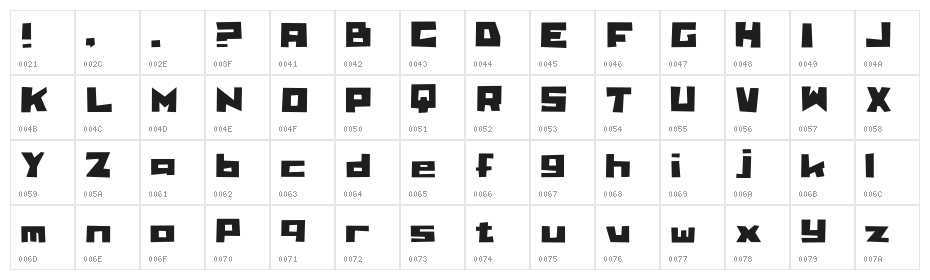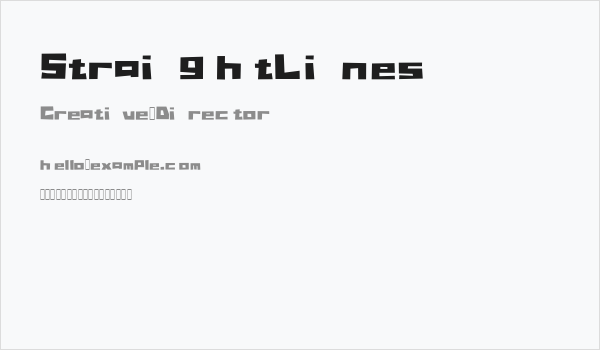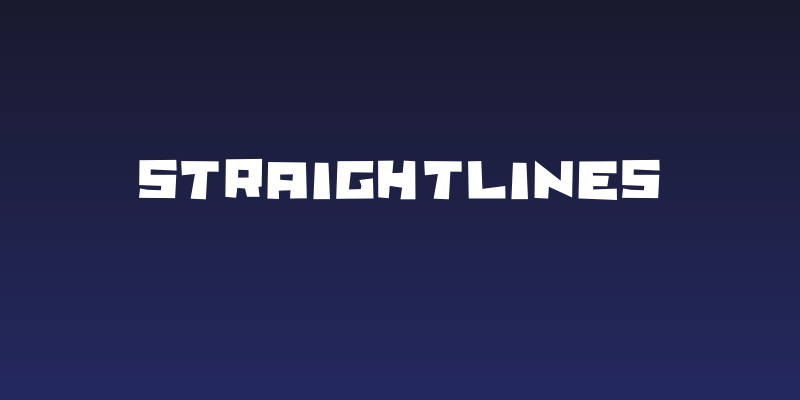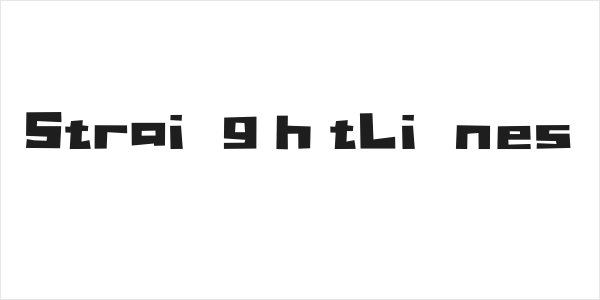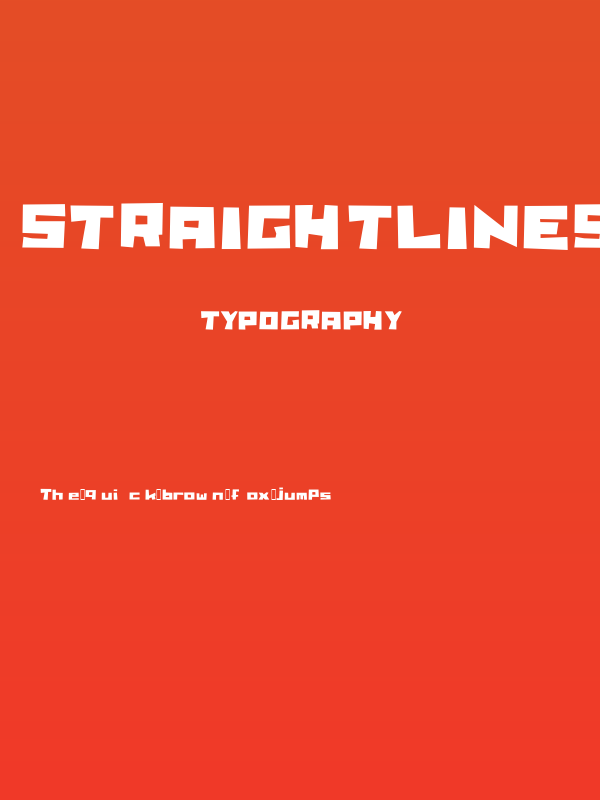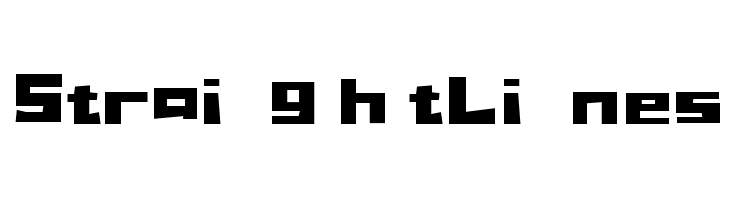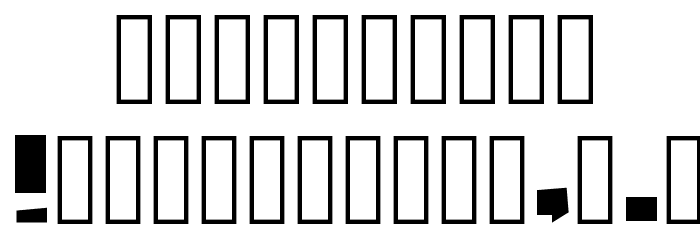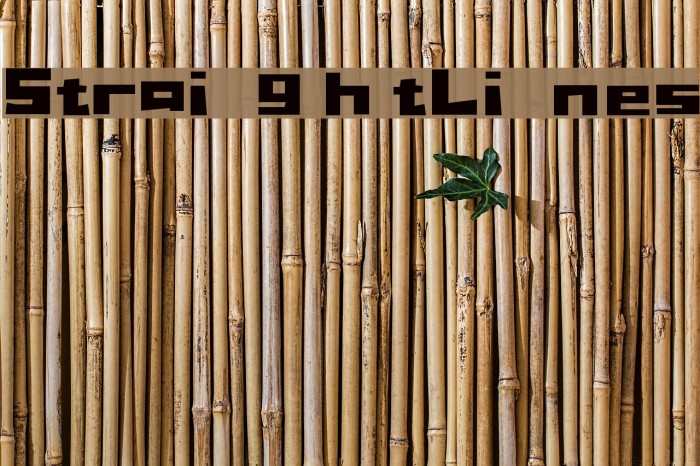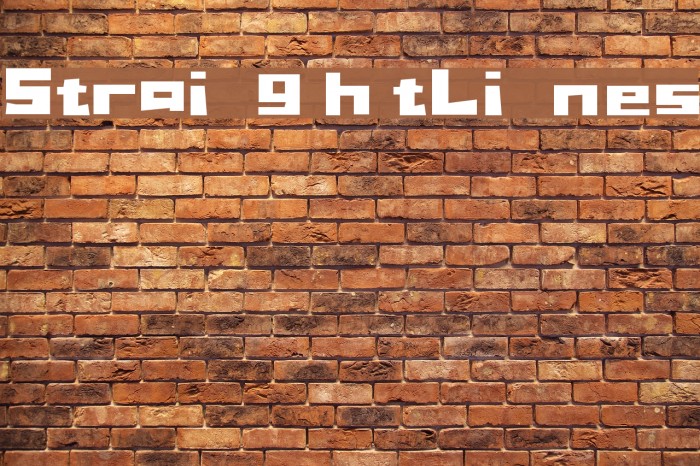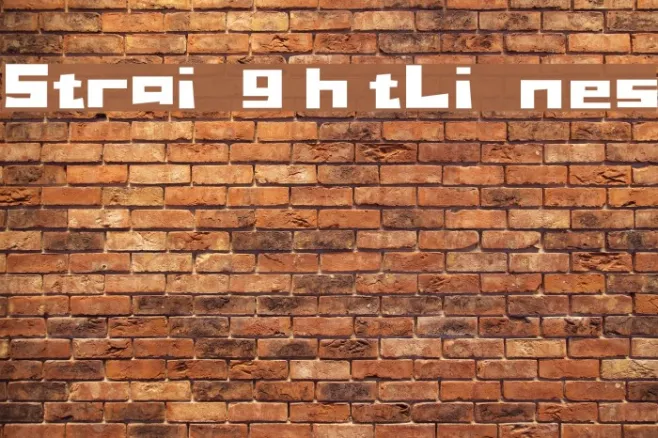
StraightLines Font
StraightLines Description
This font features a bold and geometric design with strong, straight lines and angular edges. The uppercase letters are particularly striking, with a blocky appearance that conveys a sense of strength and modernity. The lowercase letters maintain the same geometric style, ensuring consistency across the typeface. The numerals are equally bold, fitting seamlessly with the overall design. Special characters are included, maintaining the same angular and robust aesthetic. This font is ideal for projects that require a modern and impactful look.
| Proposed Projects | Ideal for branding, posters, headlines, and any design requiring a modern, impactful look. |